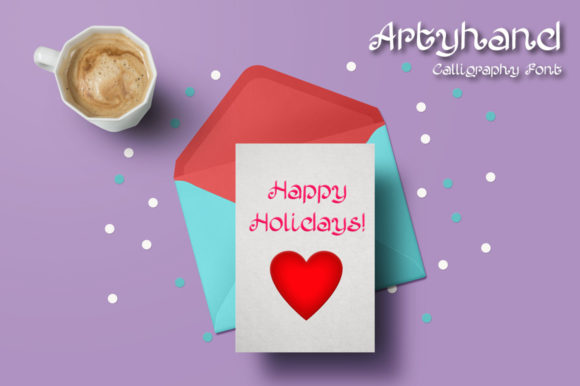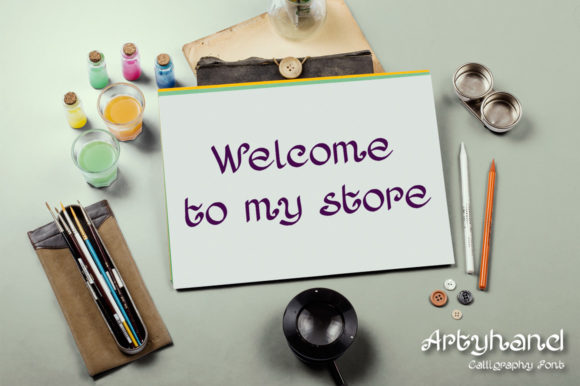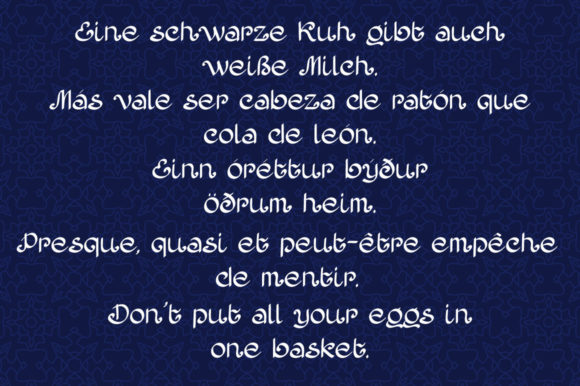
About Artyhand Font
Artyhand is a whimsical script font with a relaxed theme, featuring a lovely style. No matter the topic, this font will be an incredible asset to your fonts’ library, as it has the potential to elevate any creation.